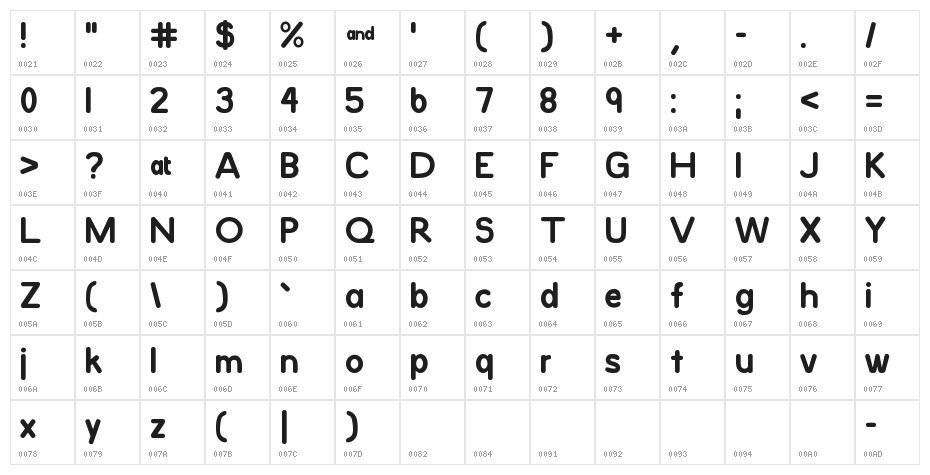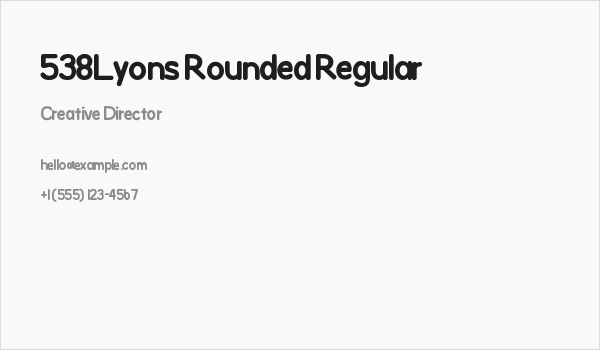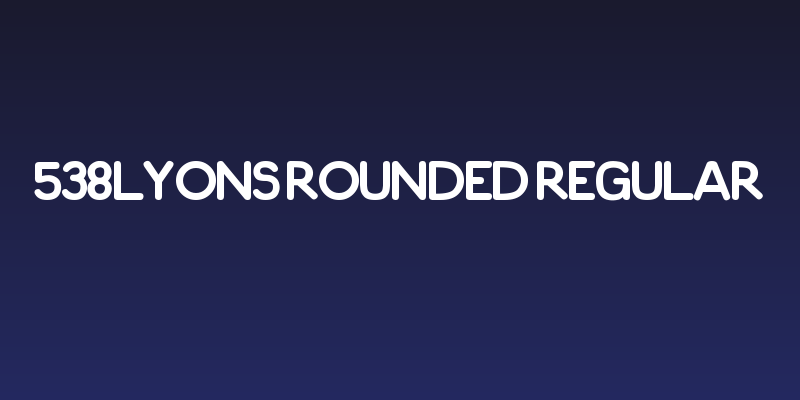
538Lyons Rounded Regular Font
538Lyons Rounded Regular Description
This font features a rounded, friendly appearance with smooth curves and a consistent stroke width. The characters are bold and have a playful, approachable style, making them suitable for a variety of informal and creative applications. The uppercase and lowercase letters maintain a uniform width, contributing to a cohesive look. The numerals and special characters are designed to match the overall rounded aesthetic, ensuring visual harmony across all elements. The font's simplicity and clarity make it highly readable, even at smaller sizes.
| Use Case | Headlines, Logos, Informal Text |
| Proposed Projects | Ideal for children's books, playful branding, casual invitations, and social media graphics. |